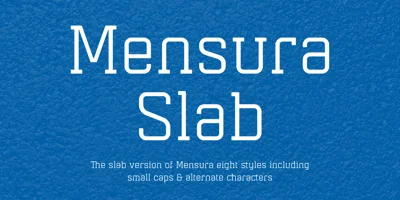
Mensura Slab Font
Mensura Slab Font is perfect for architectural measurement documentation, engineering survey reports, construction project specifications, precision manufacturing materials, surveying equipment branding, technical calibration guides, quality control documentation, measurement instrument interfaces, scientific research publications, and professional engineering communications. This precise typeface excels in applications where measurement accuracy and technical precision need to be communicated with systematic reliability and professional exactness that embodies the essence of dimensional accuracy and the meticulous attention to detail found in professional measurement sciences and engineering precision.
What makes Mensura Slab Font exciting is its remarkable ability to embody the systematic precision and measurement accuracy that defines professional engineering and scientific measurement through its carefully calibrated letterforms that project the kind of dimensional reliability and technical exactness that measurement professionals depend on for critical applications. The font captures the essence of professional measurement with its systematically structured construction and precision-oriented proportions that suggest the careful calibration and systematic accuracy that characterizes quality measurement instruments and professional surveying equipment. Its meticulously engineered character details and technical personality create an atmosphere of measurement confidence that resonates with engineers, surveyors, and measurement professionals who understand the critical importance of precision, accuracy, and systematic reliability in professional measurement applications.
The Mensura Slab Font family typically includes Light, Regular, Medium, and Bold weights, each maintaining the signature precision characteristics and measurement accuracy. Some versions offer specialized character sets with technical symbols and measurement notation, alternative elements designed for engineering documentation, and specialized variants optimized for calibration displays and scientific publications. The family may also include condensed styles for efficient technical layouts and display cuts designed for maximum precision impact in engineering and measurement applications requiring authentic technical credibility and dimensional accuracy.
Whether you're creating measurement equipment brands, engineering documentation systems, or technical precision communications, Mensura Slab Font delivers the perfect dimensional accuracy your measurement-focused projects deserve. Its precision character and technical styling make it an invaluable asset for engineering firms, measurement equipment manufacturers, and scientific institutions working in precision measurement, engineering surveying, and dimensional accuracy sectors where authentic technical expertise and systematic measurement precision are essential for establishing credibility with professionals who depend on accurate measurements and reliable technical documentation for critical engineering and scientific applications.